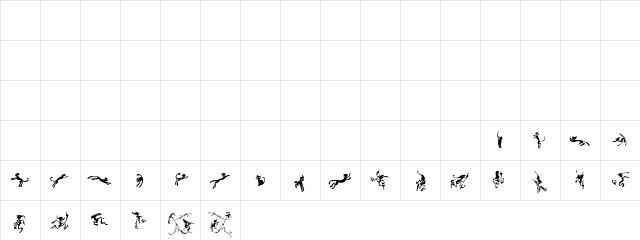
Halloweenies Demo Regular Font Preview
Halloweenies Demo Regular
Design Context for Halloweenies Demo Typeface
Halloweenies Demo is a composed and adaptable typeface that performs quietly and consistently across a wide range of design contexts.